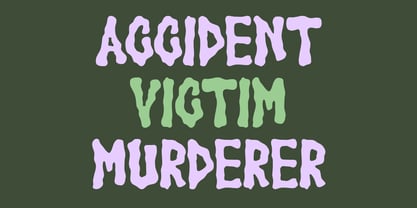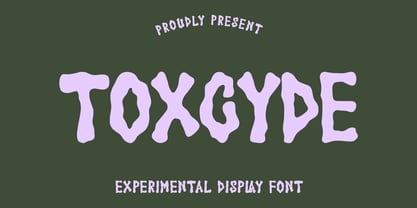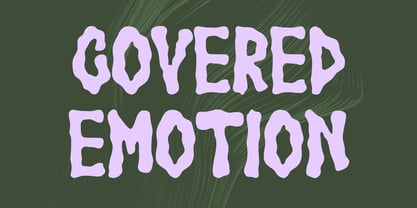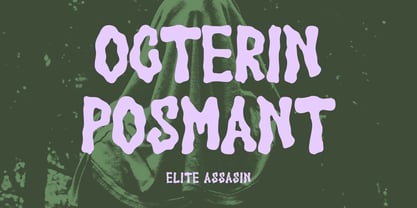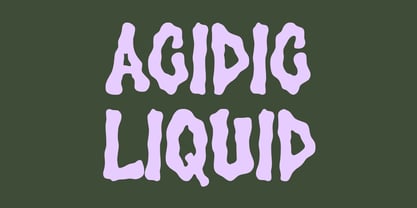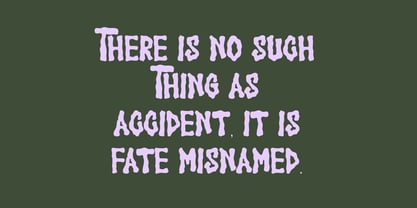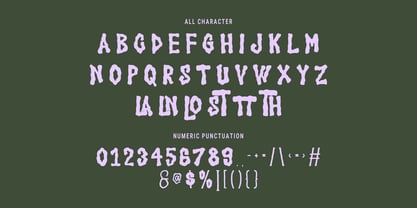
MC Toxcyde
por Maulana Creative
La familia tipográfica MC Toxcyde fue diseñada por Gilang Maulana y publicada por Maulana Creative. MC Toxcyde contiene 1 estilos. Más información sobre esta familia
Toxcyde is an all caps experimental display font. Bold stroke, fun character with a bit of ligatures. To give you an extra creative work. Toxcyde font support multilingual more than 100+ language. This font is good for logo design, Social media, Movie Titles, Books Titles, a short text even a long text letter and good for your secondary text font with script or serif. Make a stunning work with Toxcyde font.
Diseñadores: Gilang Maulana
Fundición: Maulana Creative